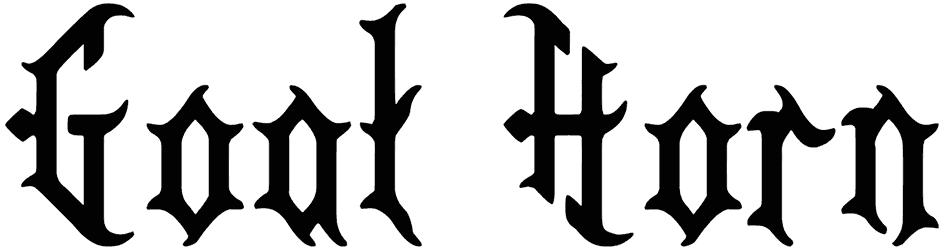
Goat Horn Font
This time, let’s depict your intended design with hot words and make everyone excited. As a medieval font, Goat Horn, with its cool style, is able to trim your creative design. You can use this unique item with a dark vibe on your layouts, such as movie posters, packaging, apparel, or the like, and make them memorable.